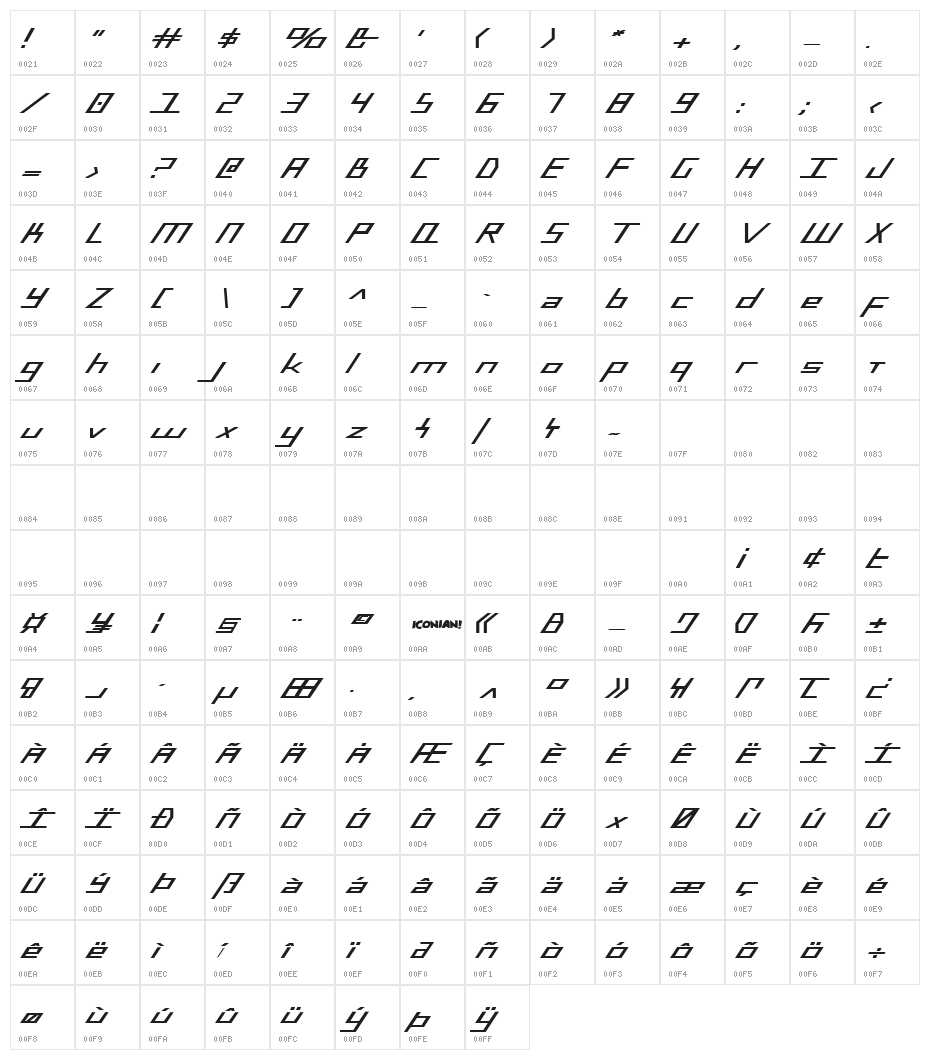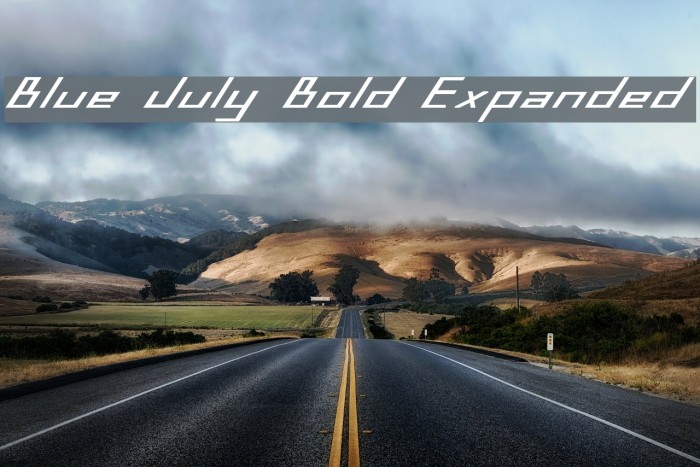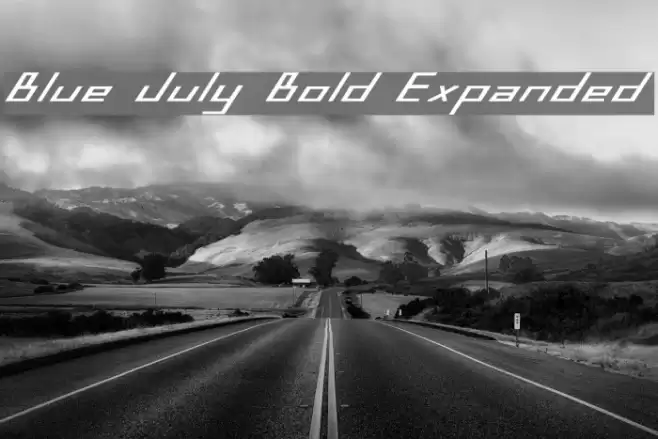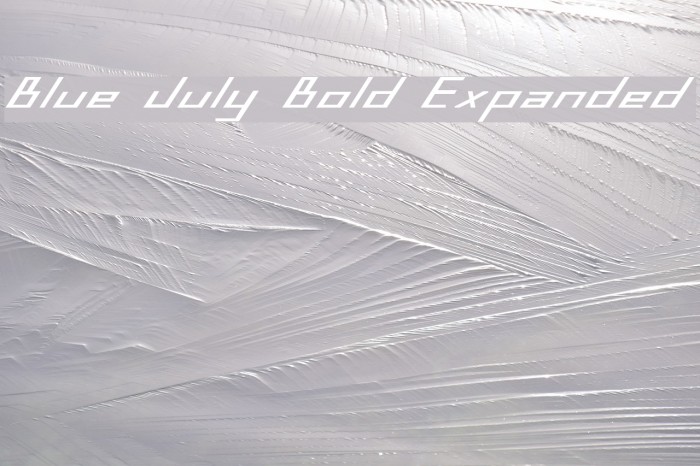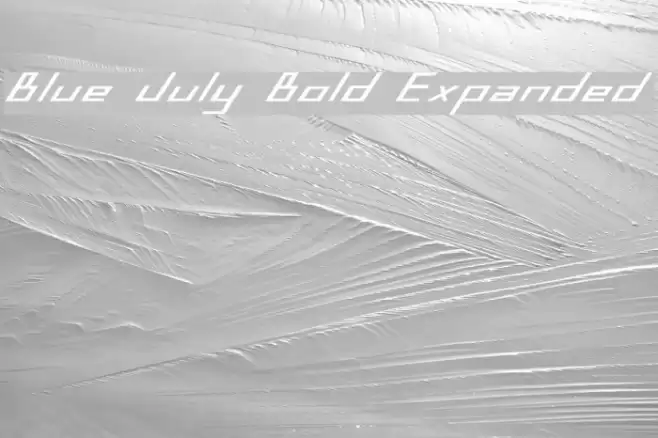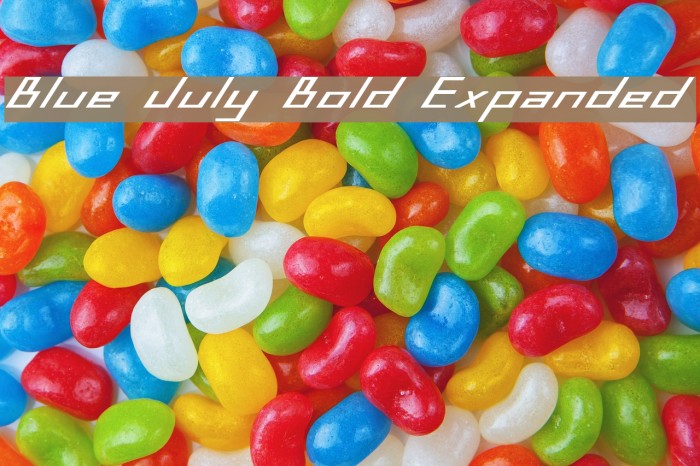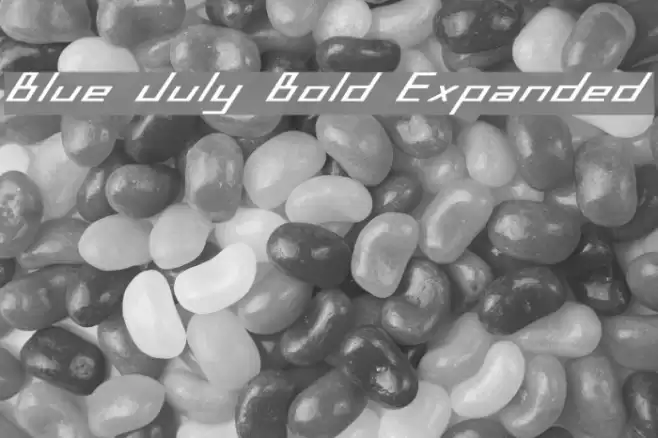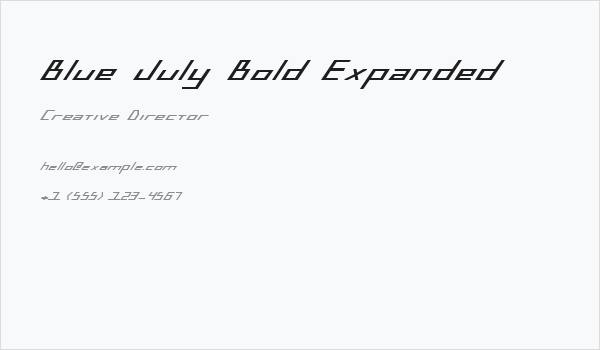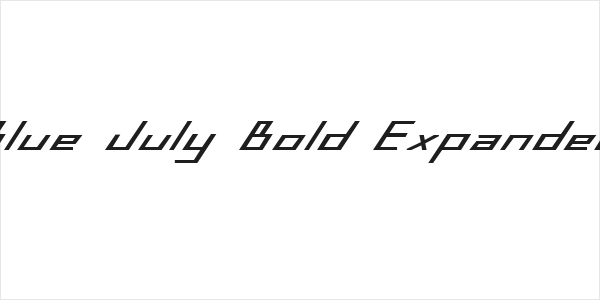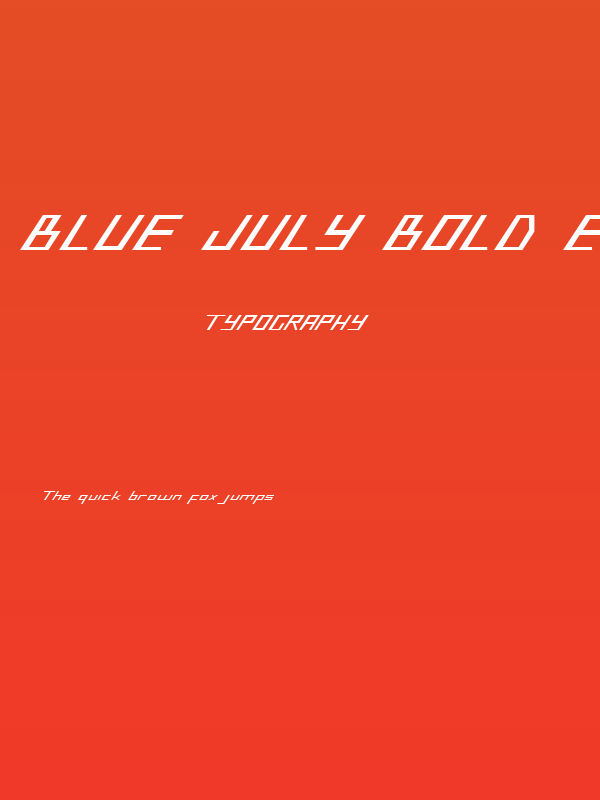
Blue July Bold Expanded Font
Blue July Bold Expanded Description
This font features a bold and expanded style with a distinct geometric and angular design. The characters are sharply defined with a futuristic aesthetic, characterized by slanted lines and a consistent stroke width. The uppercase and lowercase letters maintain a cohesive look, with a slight slant that adds a dynamic feel. The numerals and special characters follow the same angular and bold design, ensuring uniformity across all glyphs. This font's unique style makes it stand out, offering a modern and edgy appearance suitable for various creative applications.